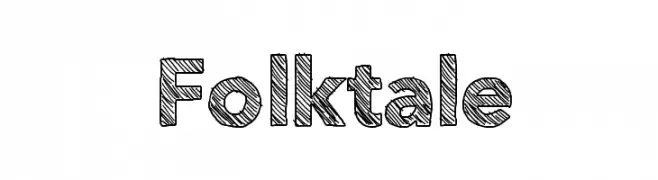
A bold, distressed stencil font with an industrial warning sign aesthetic.
A playful, hand-drawn font with a 3D sketch effect.
A bold, angular font with a futuristic and dynamic design.
A playful, sketch-style font with bold, hand-drawn characters.
A geometric, futuristic font with sharp angles and straight lines.
A playful, striped decorative font ideal for festive designs.
A bold, textured font with a crosshatched pattern for dynamic visual impact.